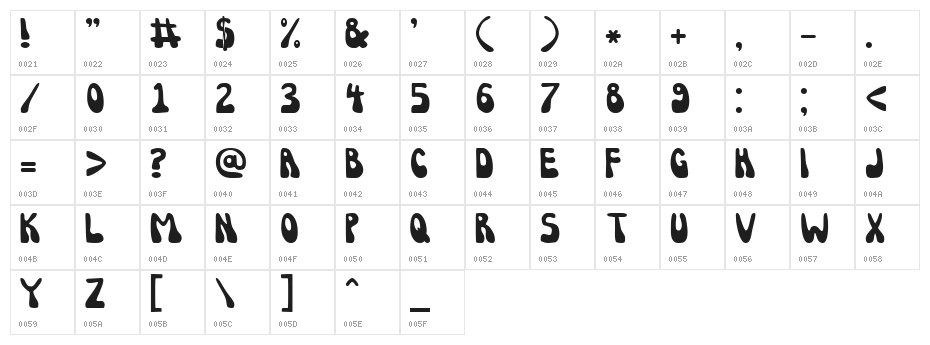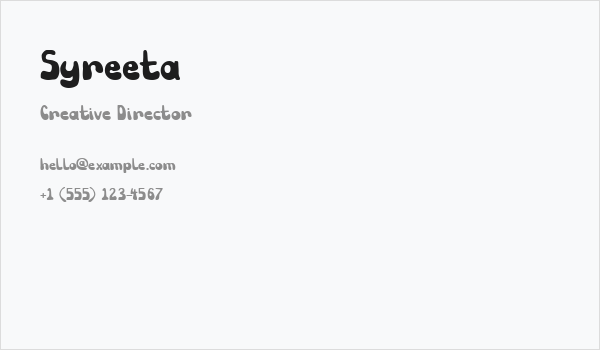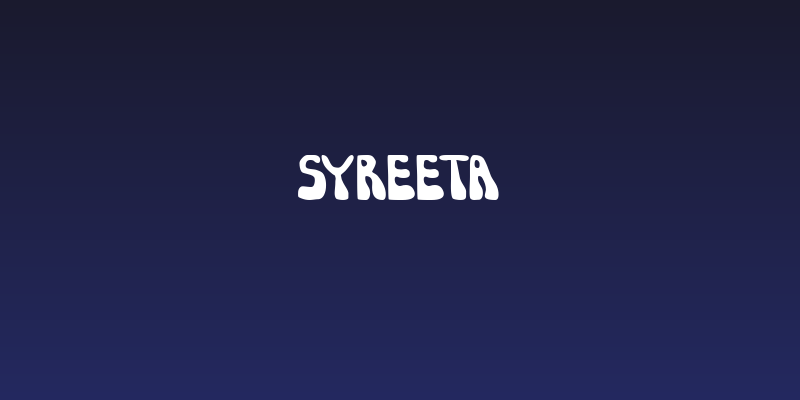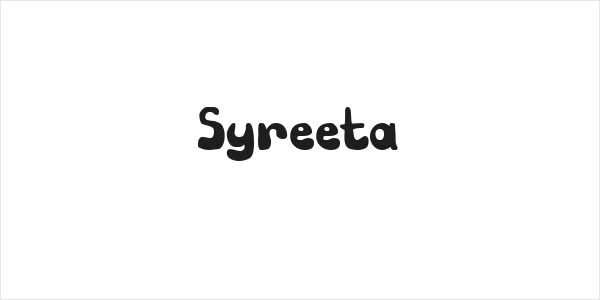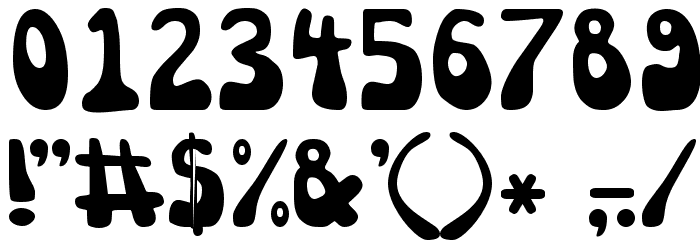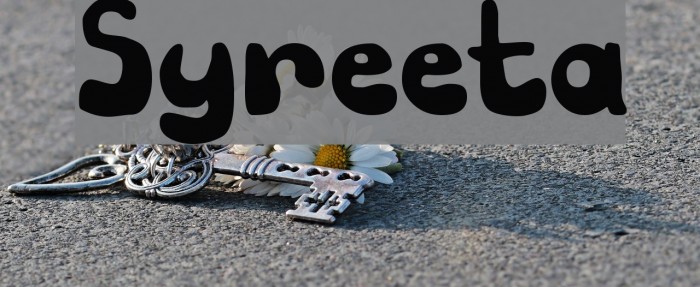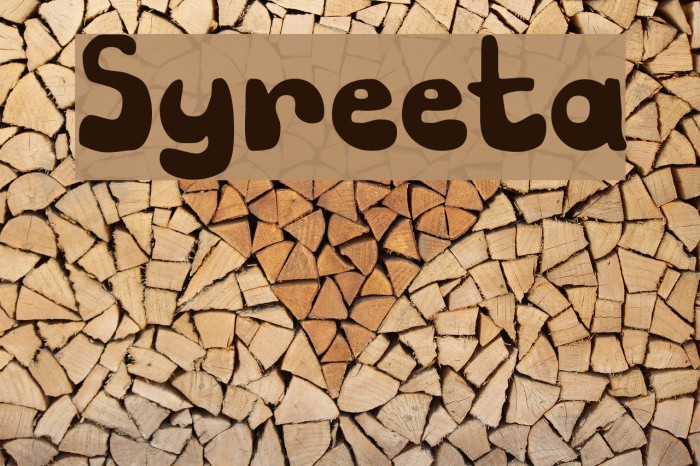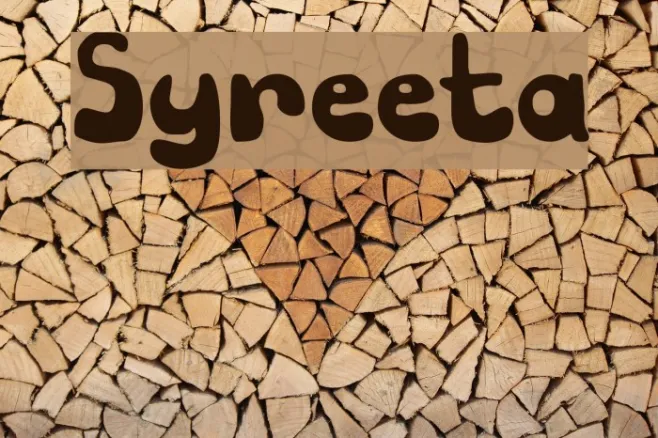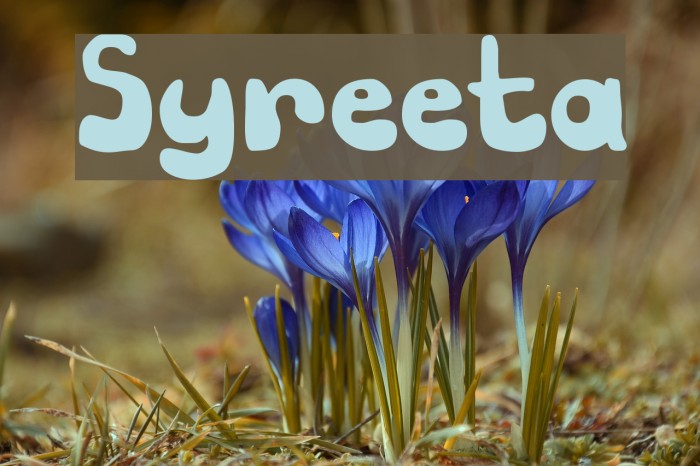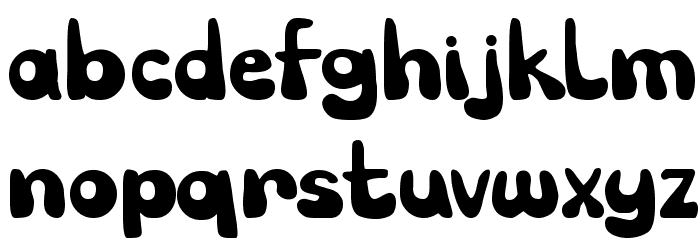
Syreeta Font
Syreeta Description
This playful and bold font features a bubbly, organic design with rounded edges and a whimsical feel. The characters are thick and substantial, giving a sense of fun and creativity. The uppercase and lowercase letters maintain a consistent style, with a slightly irregular shape that adds to the font's charm. Numbers and special characters follow the same playful aesthetic, making it suitable for projects that require a lively and engaging typeface. The font's unique style makes it stand out, perfect for capturing attention in various design contexts.
| Overall Style | Playful, Whimsical |
| Proposed Projects | Ideal for children's books, playful branding, party invitations, and creative posters. |